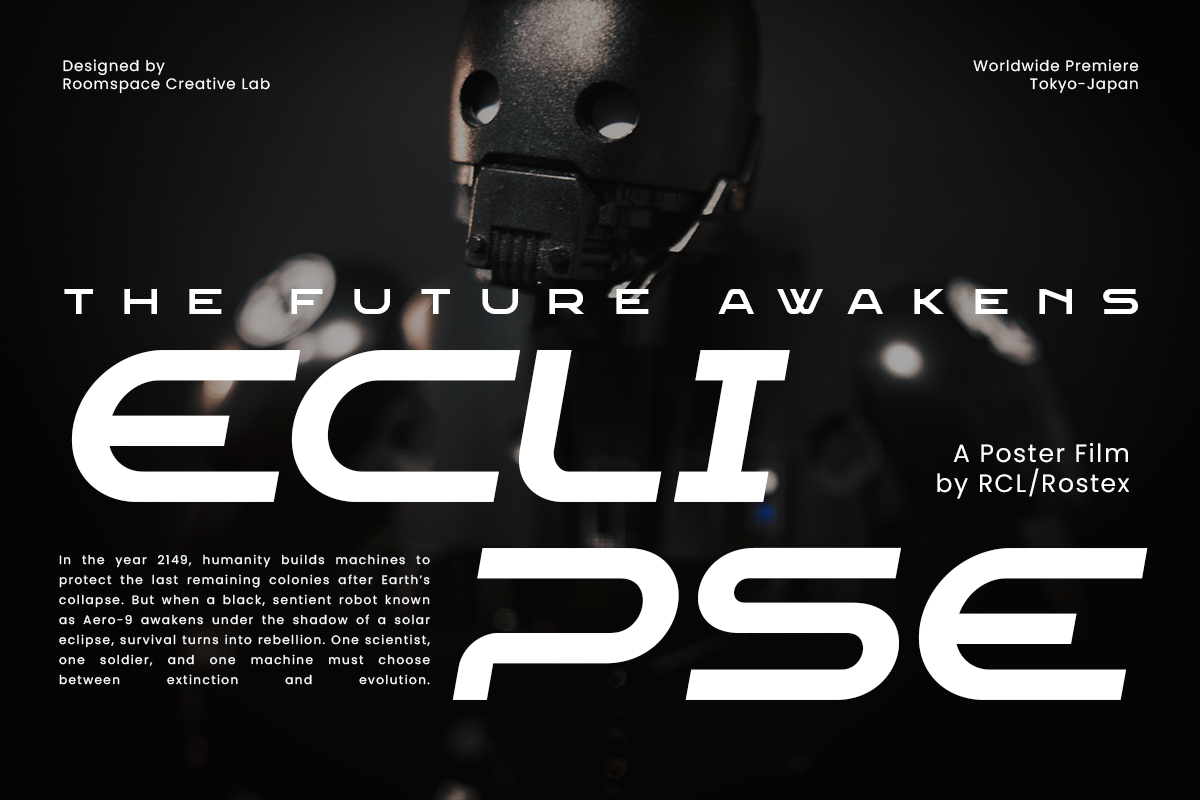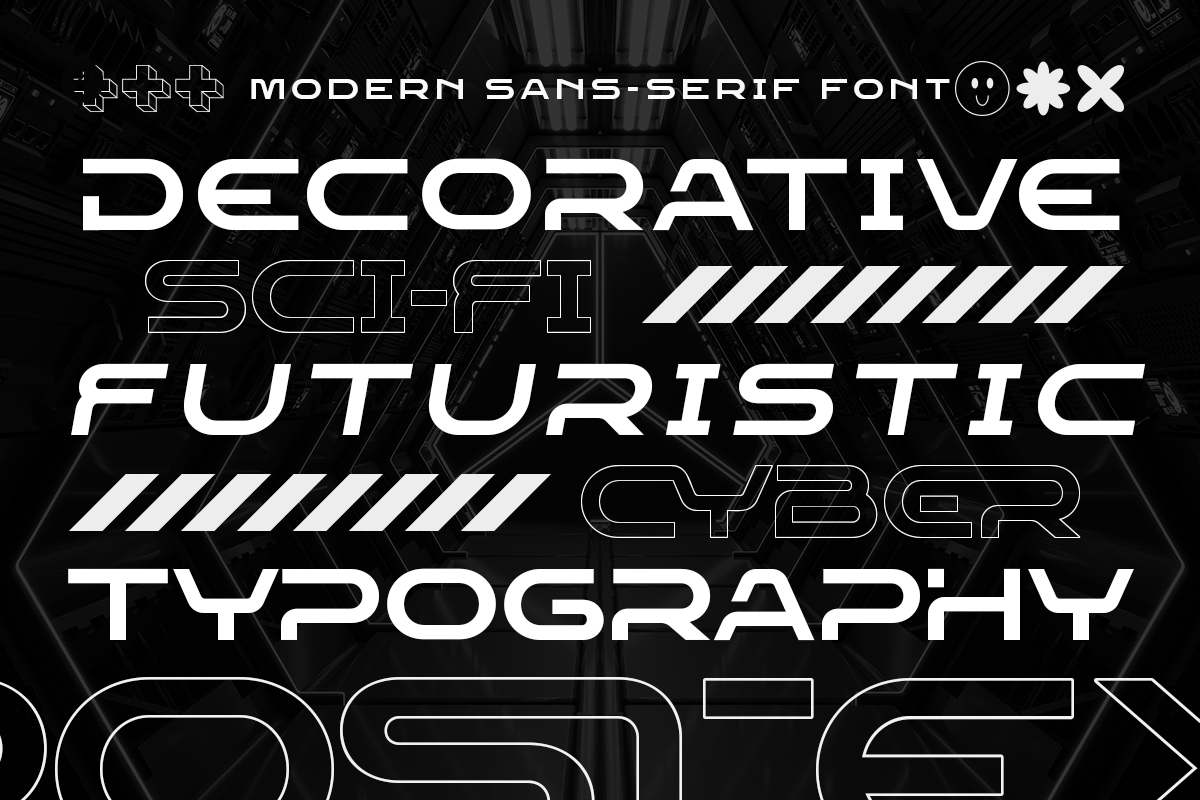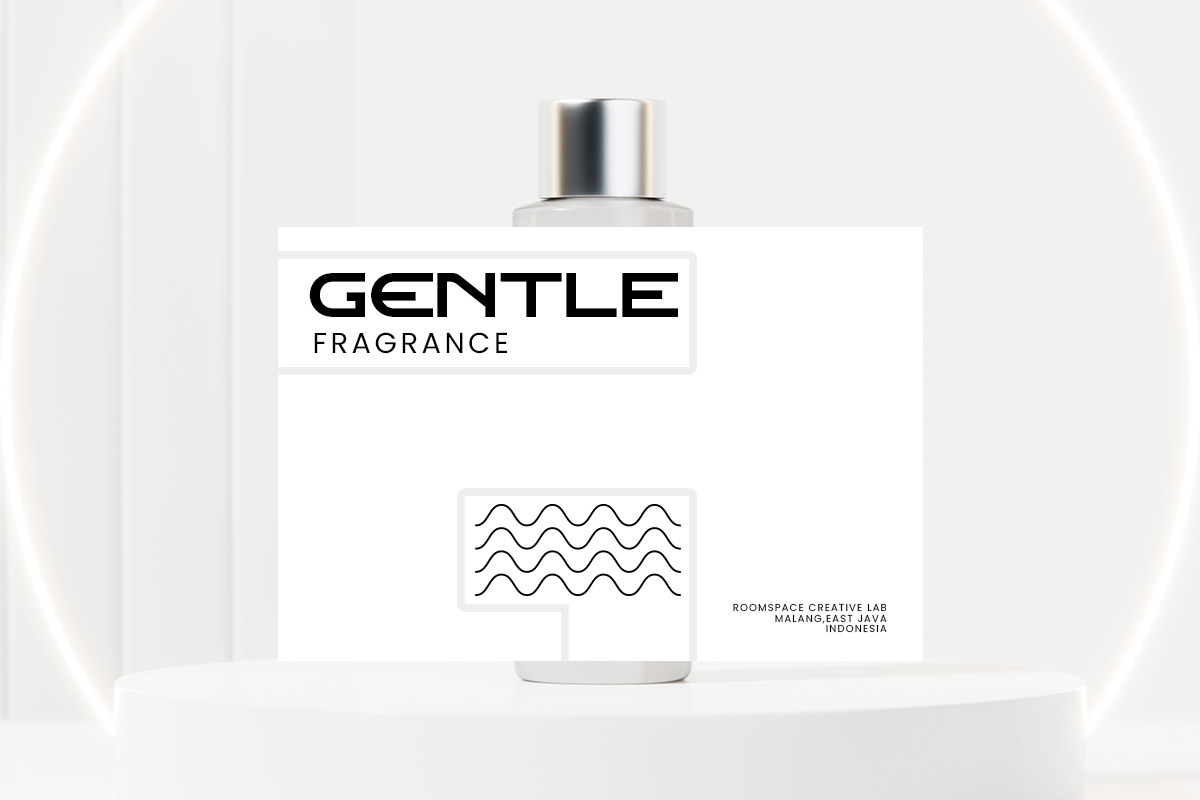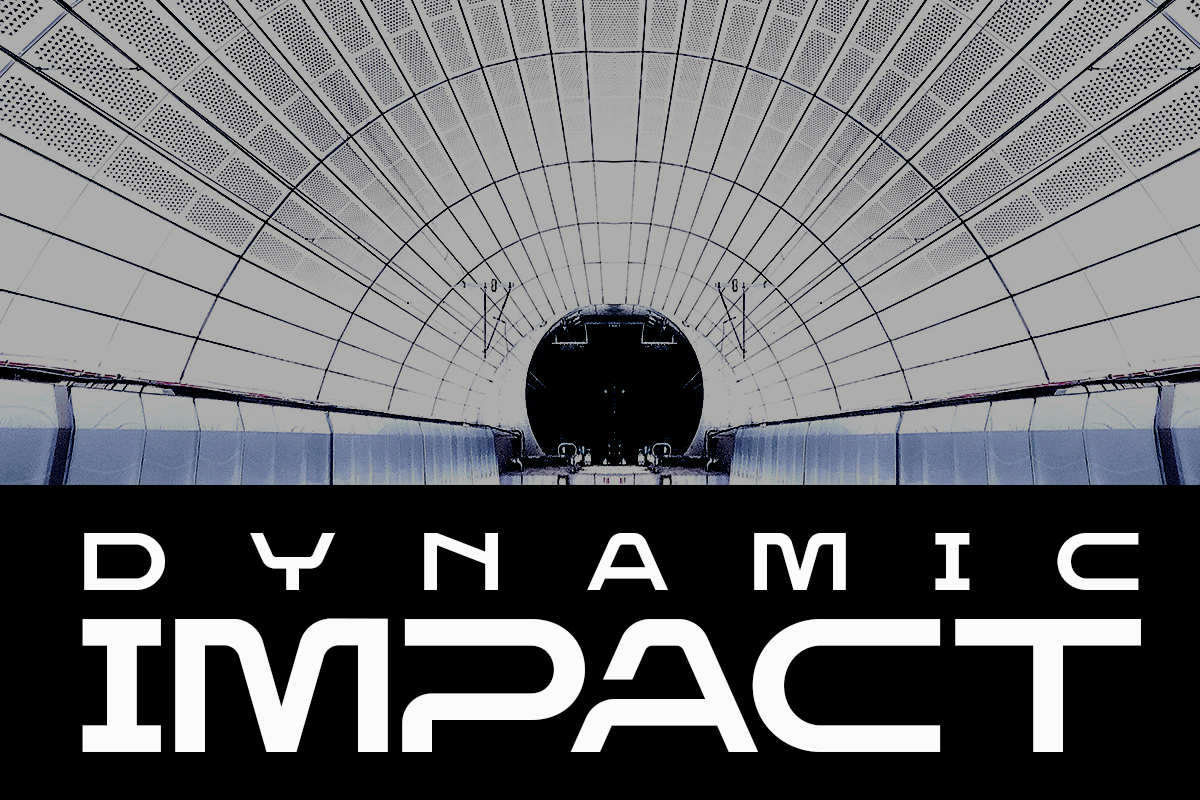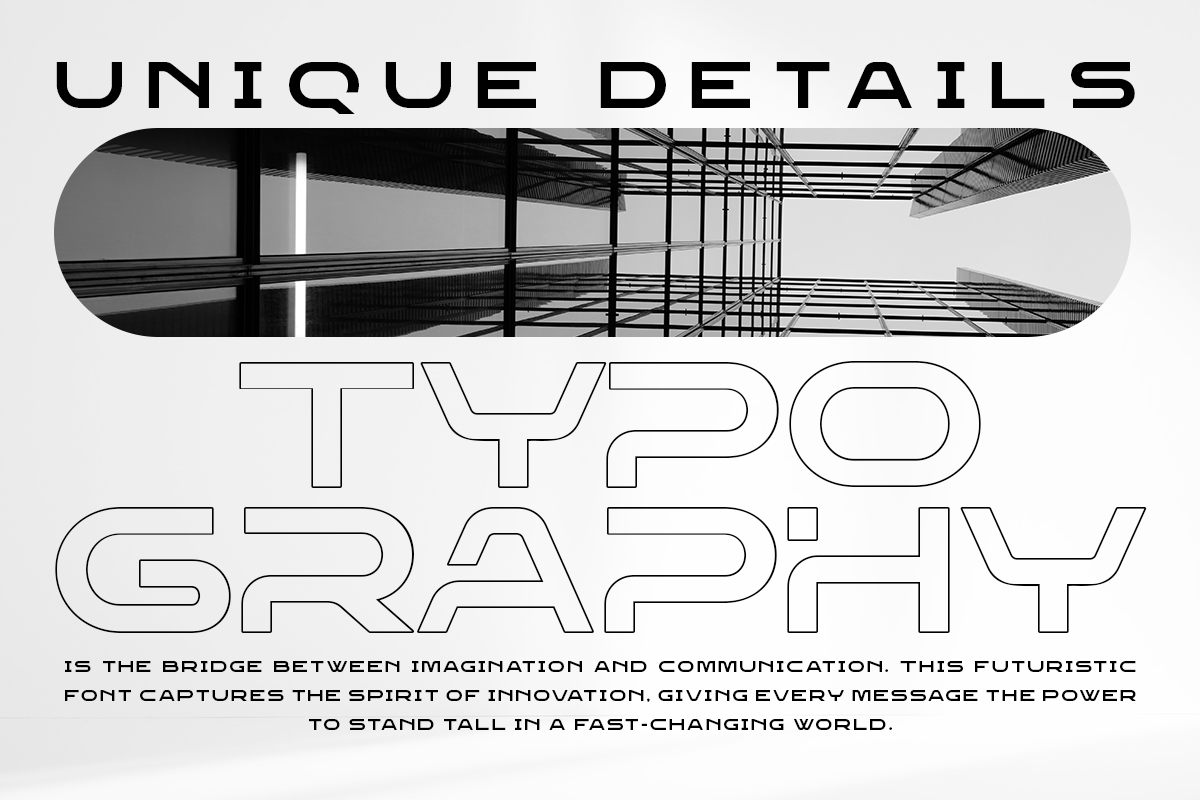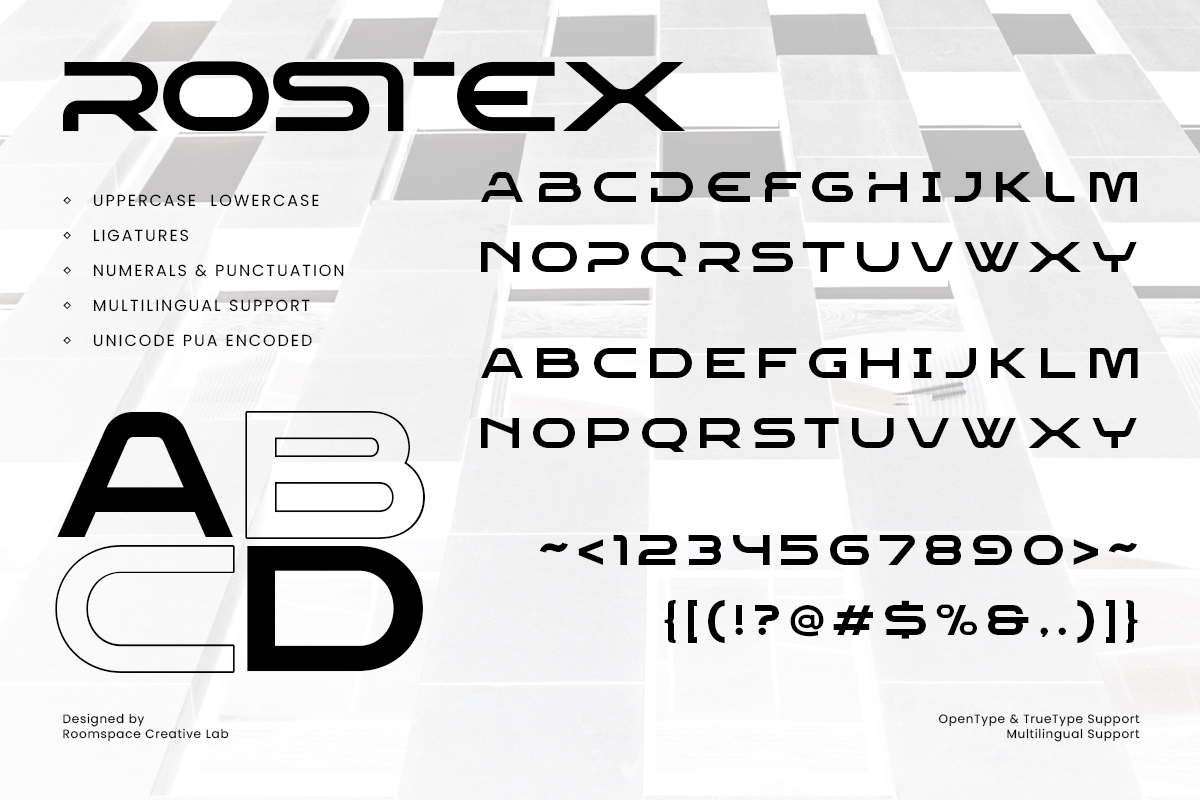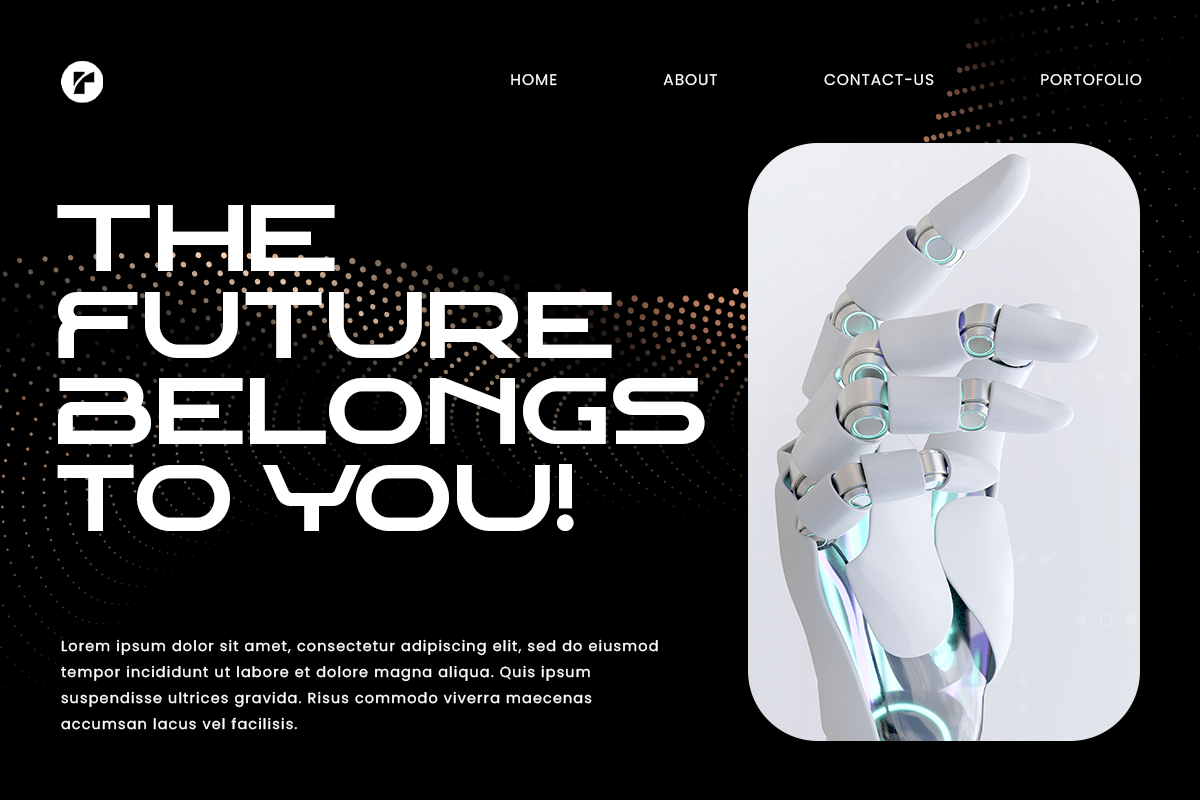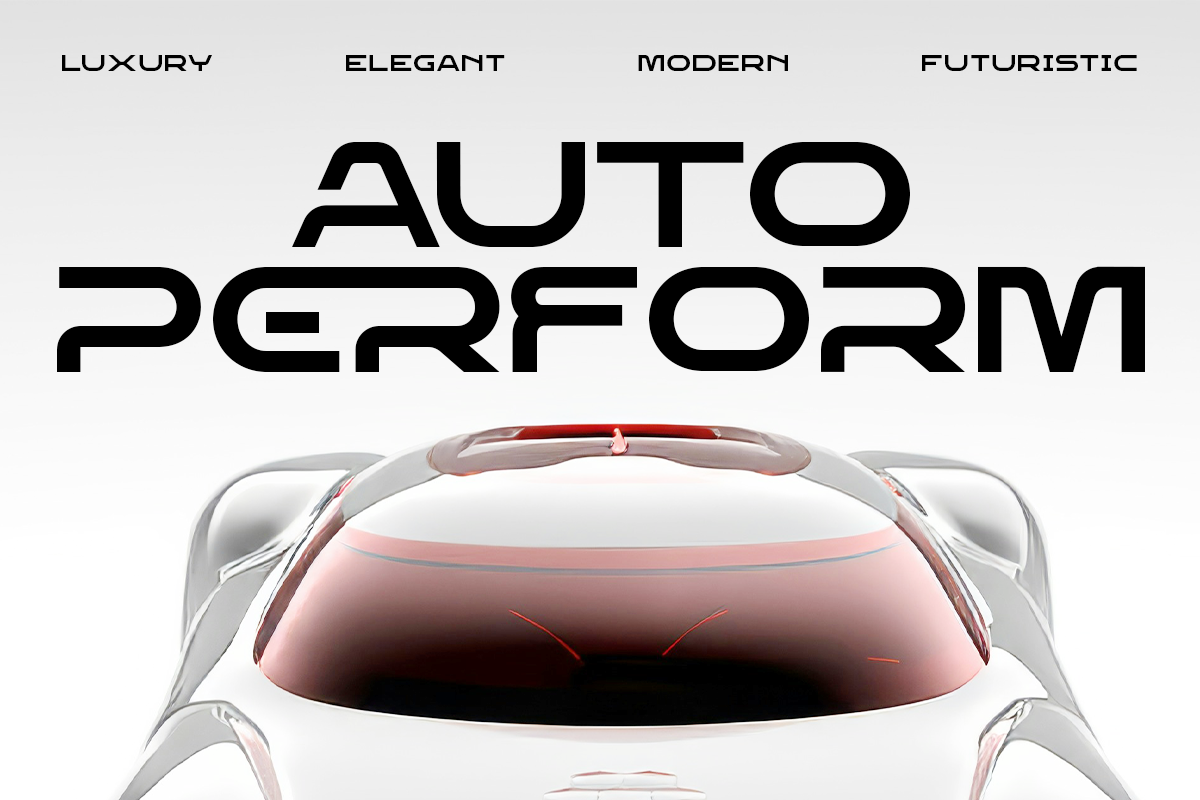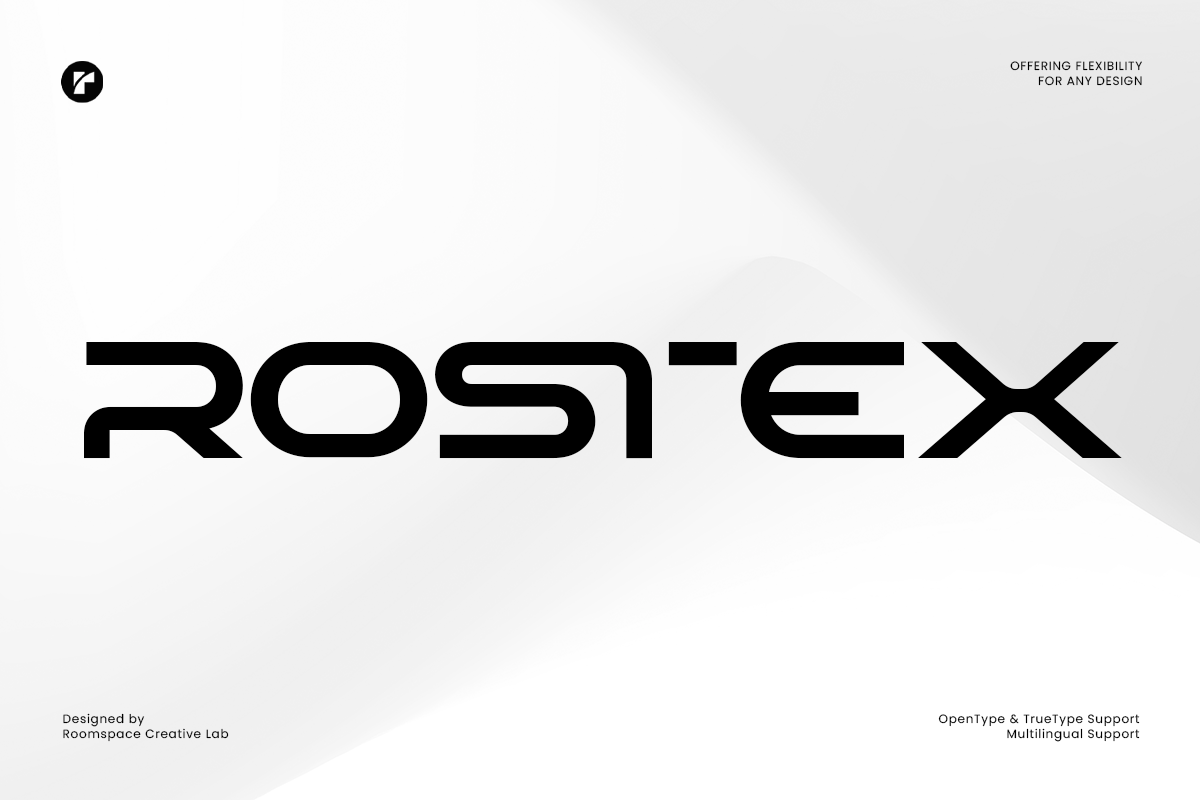
Rostex – Futuristic Techno Display
Rostex is a futuristic display font that combines sleek geometry with modern techno aesthetics. Its clean and bold letterforms reflect innovation and forward-thinking design, making it the perfect choice for projects that want to stand out with a digital edge.
Designed with precision, Rostex features consistent kerning, sharp lines, and balanced proportions that ensure readability while keeping a futuristic look. The font includes uppercase, lowercase, numbers, and multilingual support, making it versatile for both large-scale displays and detailed design needs.
Whether you’re working on tech branding, digital products, sci-fi posters, gaming visuals, or modern editorial layouts, Rostex will bring a cutting-edge presence to your design. Try it today and give your creative projects a strong, futuristic identity.